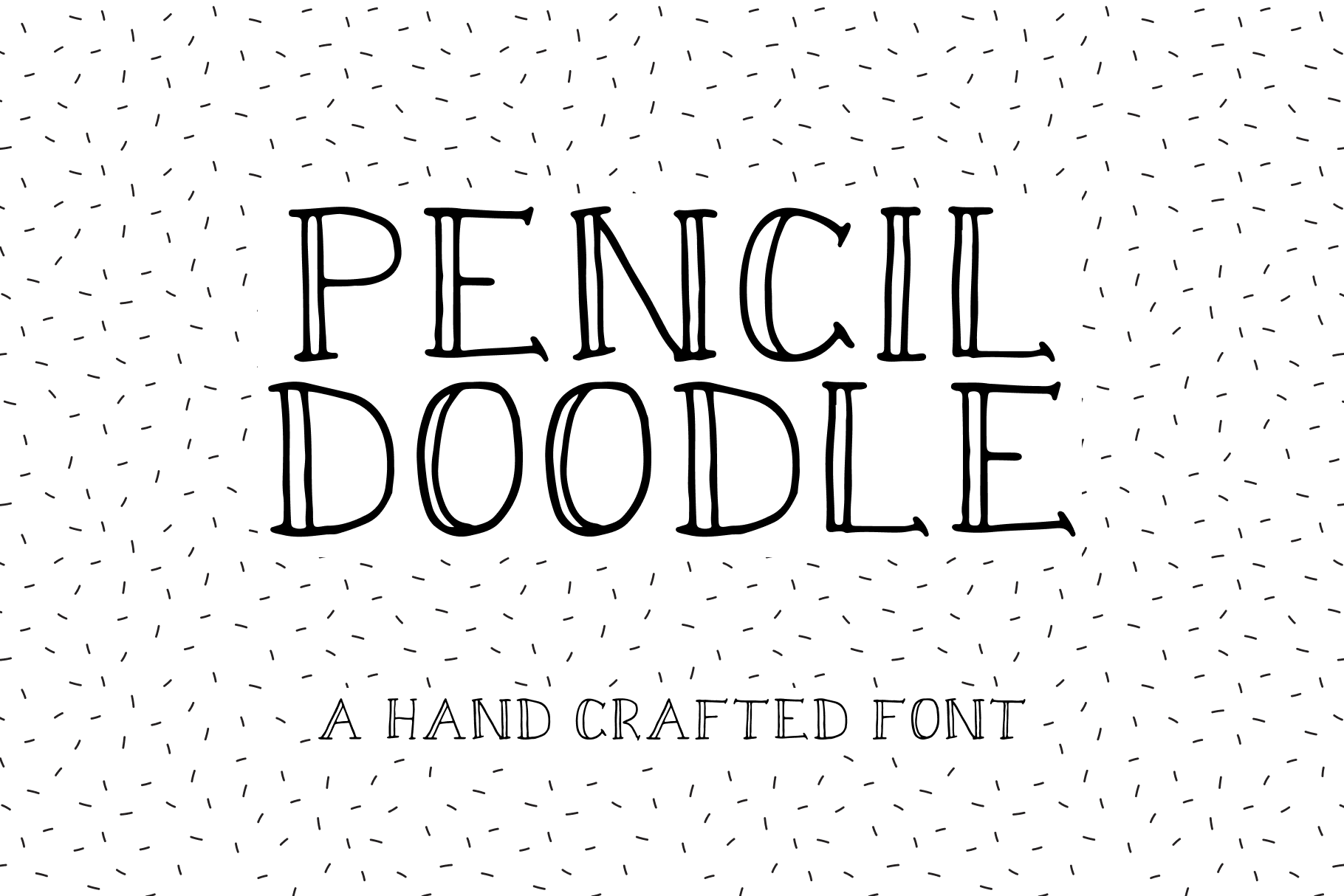
Pencil Doodle (Font)
Pencil Doodle is an original OTF capital print font, hand-drawn on paper and digitally curated in Adobe Illustrator CC. Pencil Doodle has a fun identity and will bring heaps of personality to any project. It is perfect for use in logo design, arts & crafts projects, branding, signage and much more.
• Uppercase alphabet (A-Z)
• Numeric characters (0-9)
• Collection of 21 basic punctuation glyphs